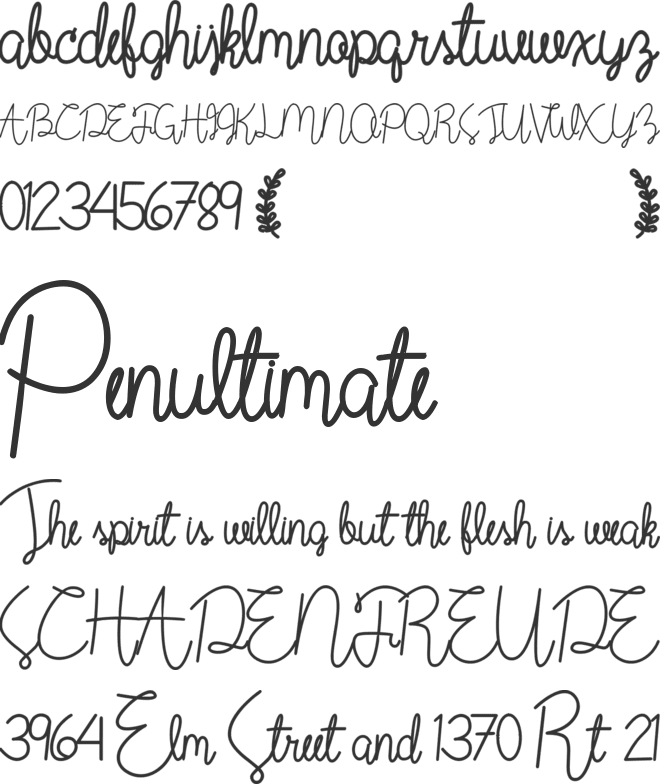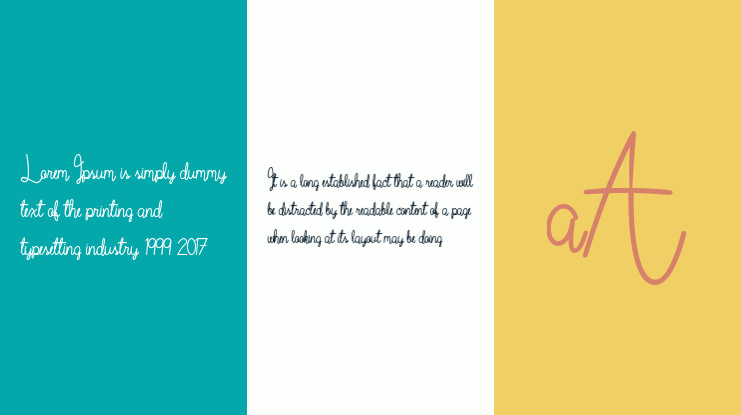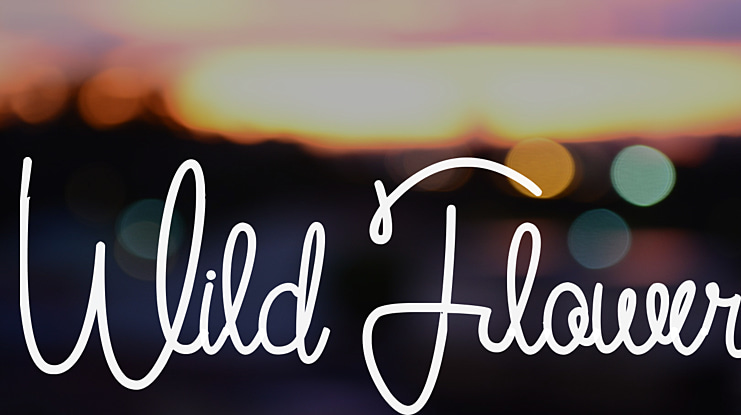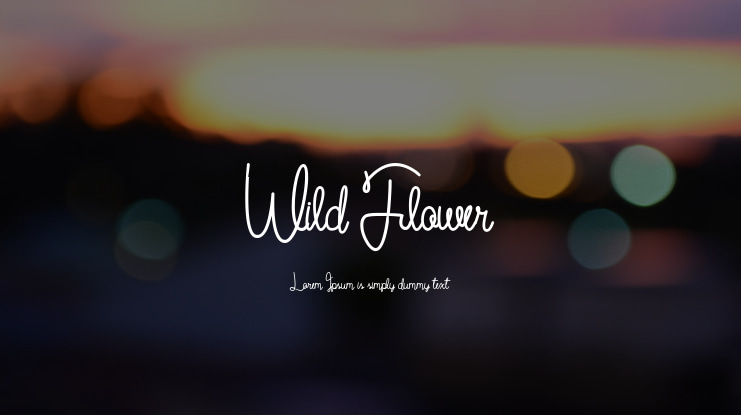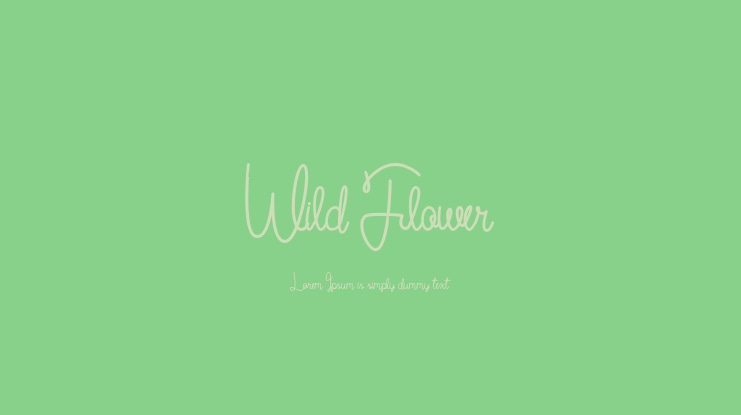
Wild Flower Font
Premiere Graphics
Wild Flower is a new script that is beautifully handwritten! This font is great for photos, for blogs, for logos and brands, etc.This is available for commercial use with its complete set of characters and underlines.